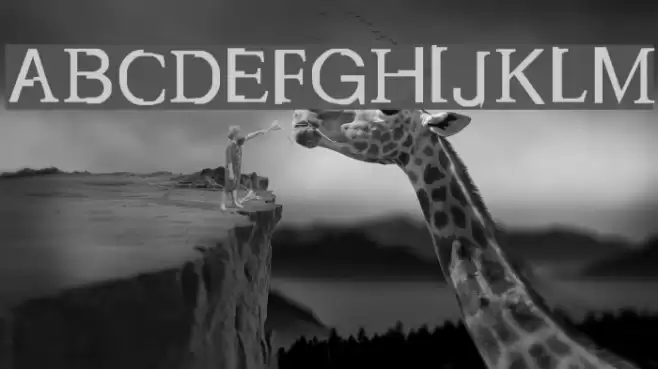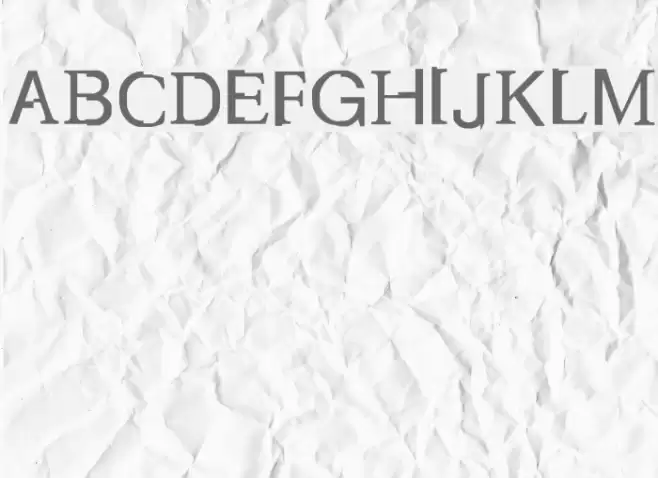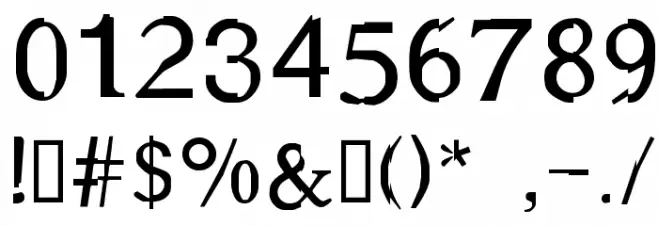
Hybrid Font
Hybrid Description
This font features a unique blend of classic serif elements with a modern twist. The uppercase letters are bold and commanding, with distinct serifs that give them a traditional feel. The lowercase letters maintain a consistent style, with some characters exhibiting slight flourishes that add a touch of elegance. Numbers are clear and easy to read, making them suitable for various applications. The special characters are well-designed, maintaining the overall aesthetic of the font. This font's high contrast in stroke thickness adds to its readability and visual appeal.
A modern serif font with high contrast and elegant flourishes from Uncategorized fonts.
- Proposed Projects: Ideal for branding, editorial design, and sophisticated print materials.